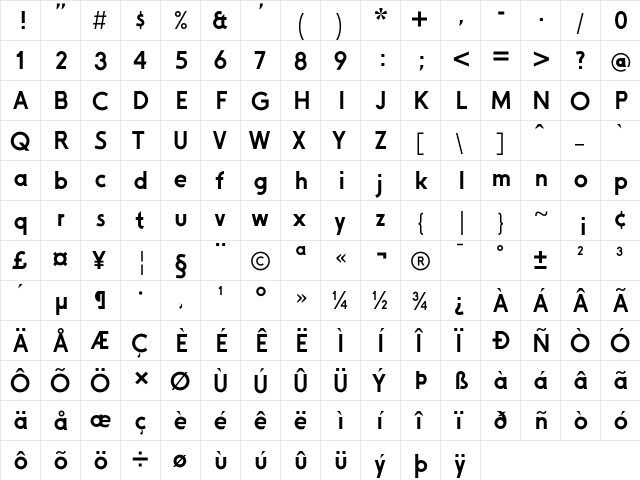
Drogowskaz Medium
Design Context for Drogowskaz Typeface
Drogowskaz takes a measured approach to typography — its balanced proportions and neutral character make it a reliable workhorse for both digital and print work.